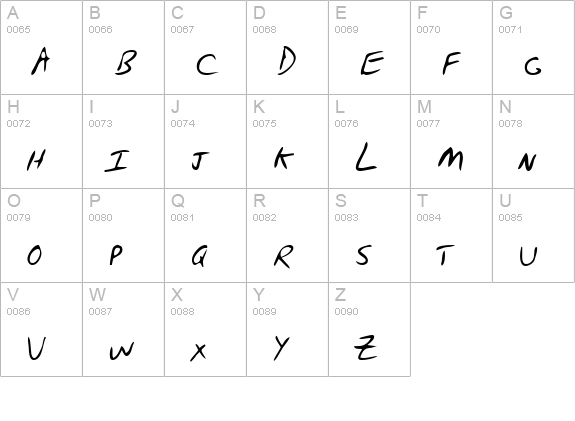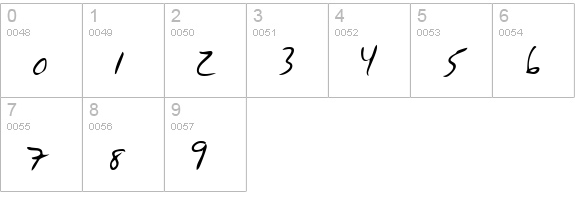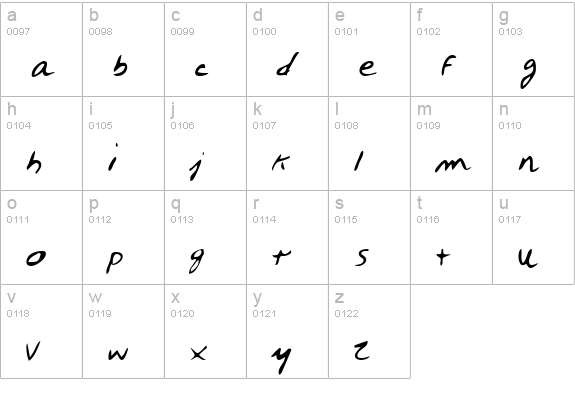
BerrysHand Regular is the standard, neutral variant in the BerrysHand typeface family \xE2\x80\x94 well suited to general body text, paragraphs, and standard typographic work.
BerrysHand Regular font is a charming and versatile typeface that exudes a sense of whimsy and creativity. With its hand-drawn appearance and unique character shapes, this font is perfect for adding a personal touch to your designs. Whether you're creating invitations, greeting cards, or social media graphics, BerrysHand Regular will make your text stand out. The best part? BerrysHand Regular font is available for free download at FontsMarket.com. This means you can easily access this delightful font and use it in your projects without any cost. Embrace the playful elegance of BerrysHand Regular and elevate your designs with its distinctive style. Download it today and let your creativity flow!